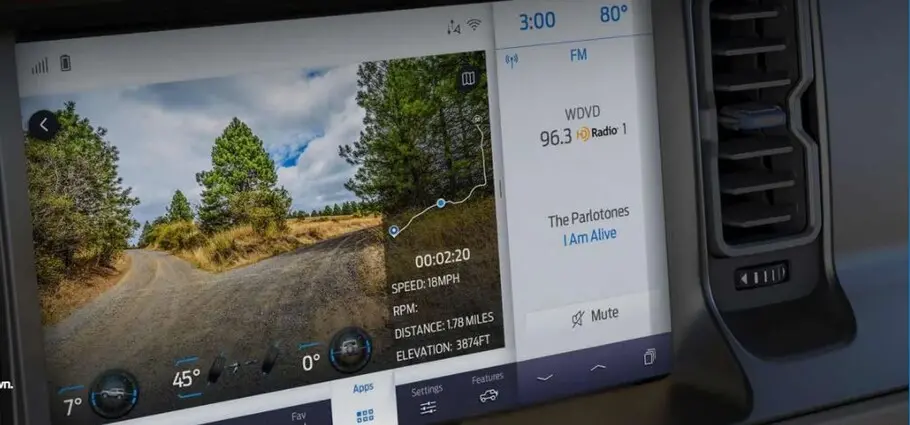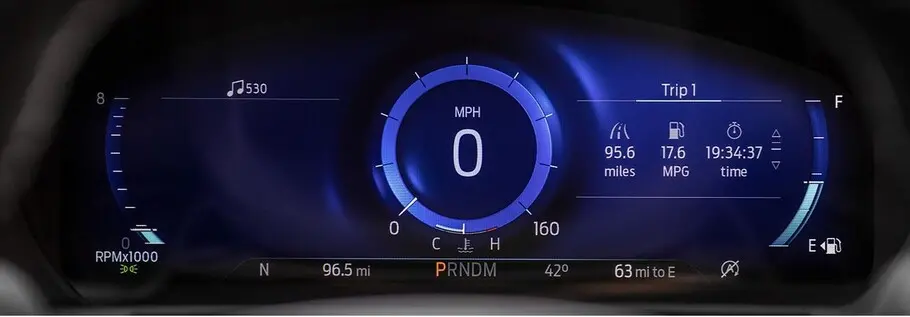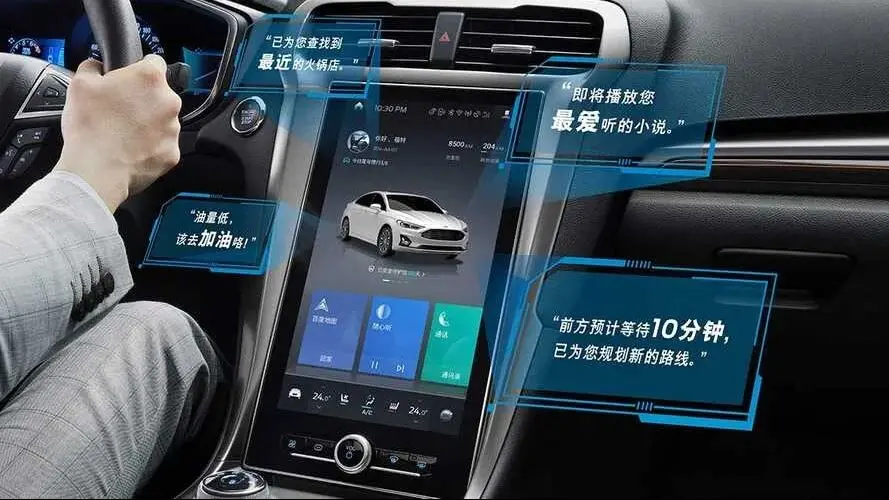
Creative Characters S1 E10: Hannelore Ocampo: How type keeps your car (and eyes) on the road.
“ I bet most people have never just sat in their car, looking at their screens and thought, somebody made this ... but there are lots of people working so that you can just sit down and be safe. ”
Hannelore Ocampo.
Type is not often a matter of life and death, but that changes when you’re cruising down the highway at 80 mph or following GPS directions through unfamiliar city streets. Clear legibility in those quick-glance situations is essential, and with modern cars evolving to be glorified tablets on wheels, type has become a central component of the driving experience and key to ensuring driver safety.
This week’s guest knows a thing or two about this: Hannelore Ocampo, Fonts Lead and Type Specialist at Ford Motor Company. Hanne’s role focuses on the deployment of fonts in Ford’s HMI (Human-machine interface) applications, both from a functional and aesthetic perspective.
And therein lies the challenge for all modern automakers: How do you use tech and type to create an in-car experience that looks great and reflects the brand without compromising the driver’s ability to quickly read important information? And how do you develop a cohesive experience across a range of languages, some of have vastly different needs when it comes to rendering and physical space on the screen.
“I bet [most people] have never just sat in their car, looking at their screens and thought, somebody made this—the design, the colors, the details, the size of the screen,” Ocampo says, “But there are lots of people working so that you can just sit down and be safe.”
This week’s host couldn’t be a better match: Michigan native and admitted car fan Creative Type Director Terrance Weinzierl. “What I love about cars is that they are a masterpiece of industrial design,” Weinzierl says. “They are this combination of thousands of sculptures and engineering and so much design and it takes forever to develop them. And I see this correlation between vehicle design and typeface design, with a typeface being hundreds of drawings that need to fit together in a similar way.”